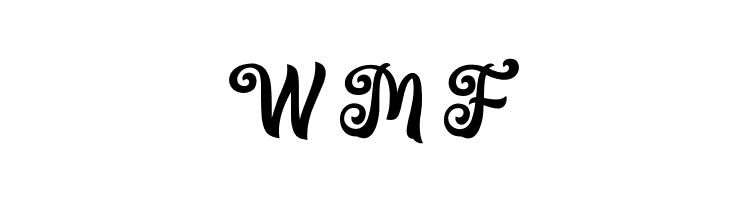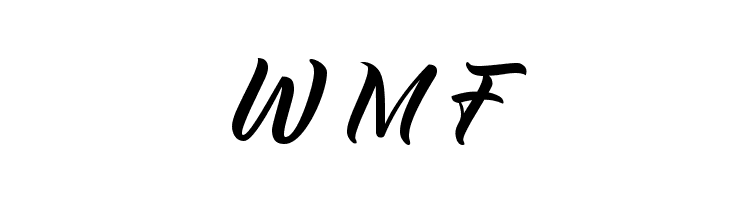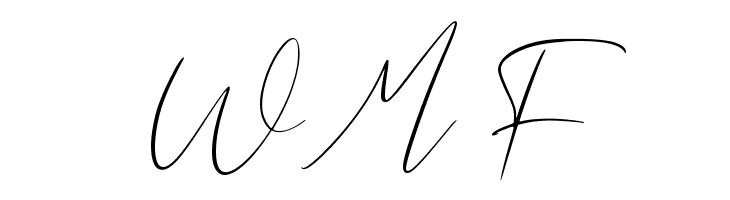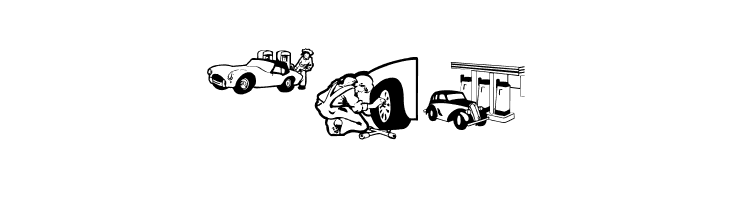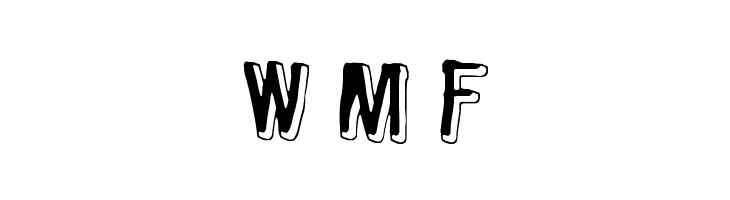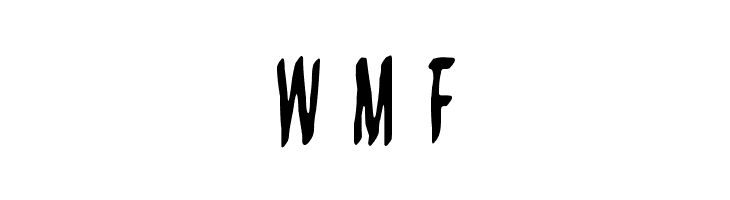
A playful, hand-drawn font with bold outlines and irregular shapes.
A bold, brushstroke-style font with sharp, jagged edges and a graffiti-like aesthetic.
A bold, flowing script font with elegant and cursive letterforms.
An elegant font with flowing swashes and intricate curves, perfect for artistic projects.
Illustrative, automotive-themed pictogram font.
A playful, hand-drawn font with a whimsical and dynamic style.
A playful, hand-drawn 3D font with bold, outlined characters.
A playful and decorative font with ornate uppercase and simpler lowercase letters.
An elegant, flowing cursive font with thin, graceful strokes.